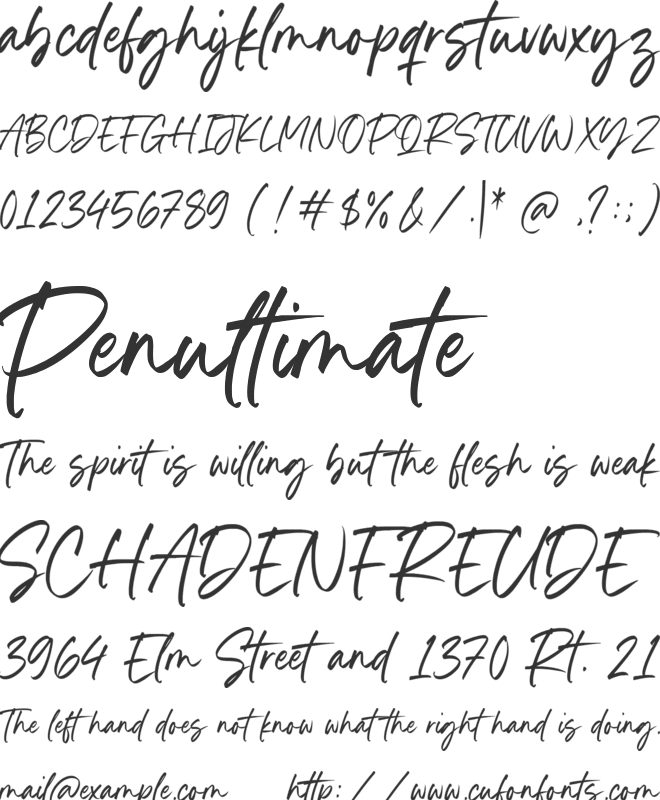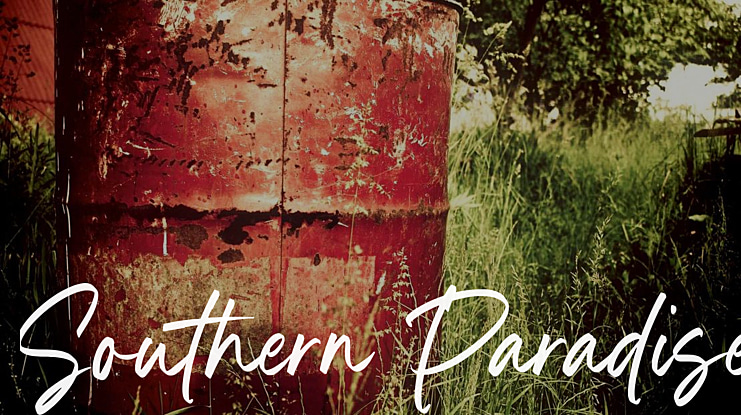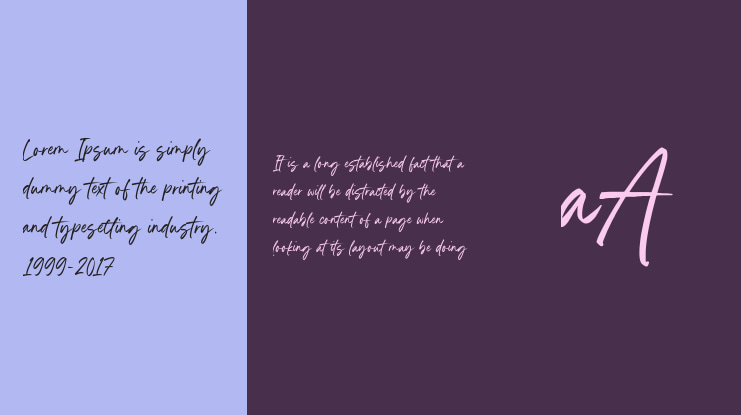
Southern Paradise Font is a Handwritten script font that is modern and fresh, and will bring a warm and inviting feel to your business. Take advantage of the fonts and experience the magic for yourself.
Southern Paradise is perfect for product packaging, branding project, megeenazine, social media, wedding, or just used to express words above the background.
Southern Paradise Features premium :
-Full Set of standard alphabet and punctuation
– Southern Paradise also multilingual support.